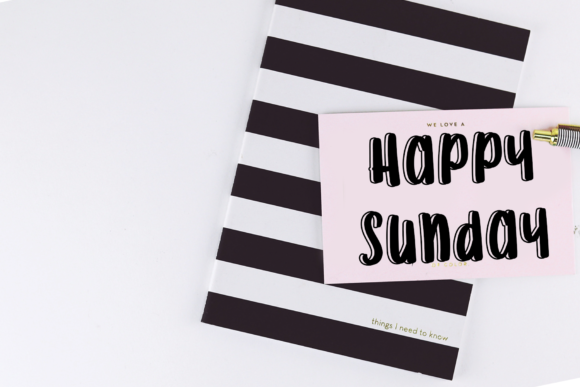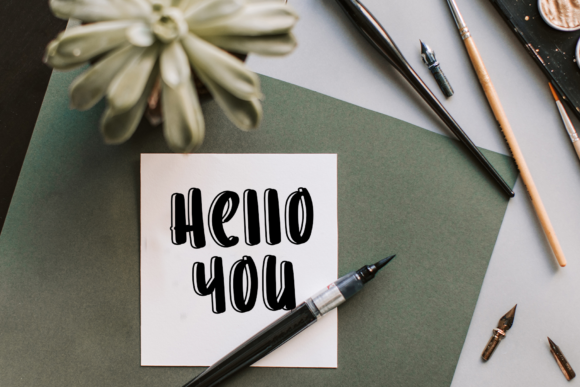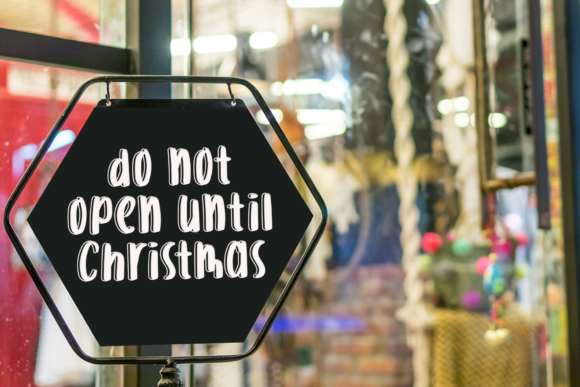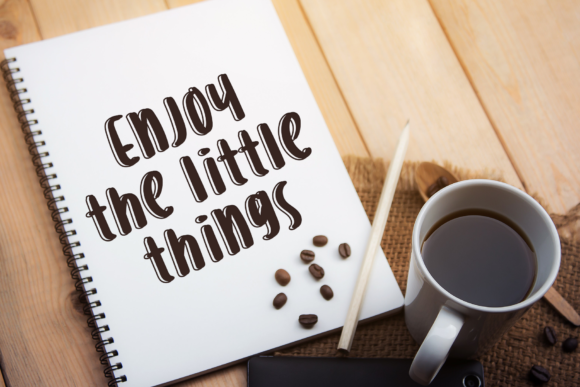
Best Friends Font
About Best Friends Font
Best friends is a bold and elegant handwritten font. It will looks amazing on wedding invitations, thank you cards, weddings, greeting cards, logos, business cards and any other design that you can think of.